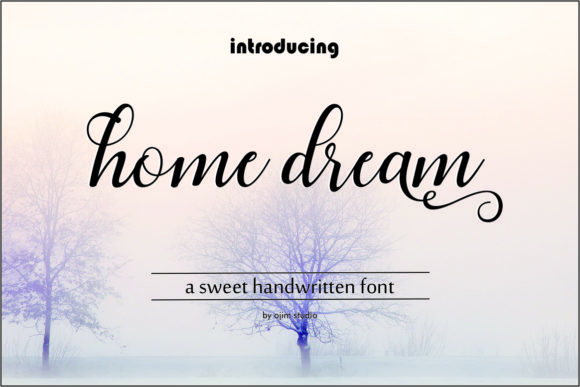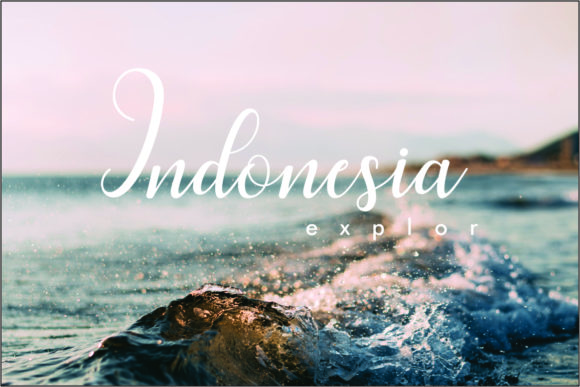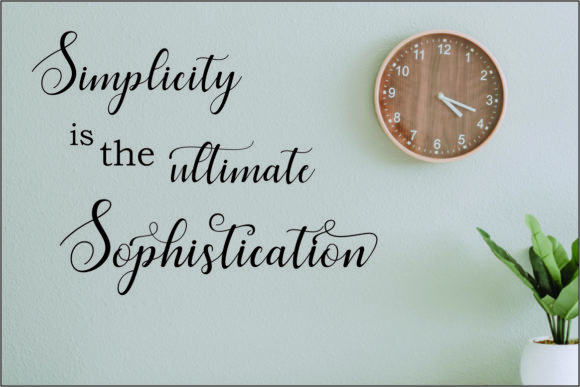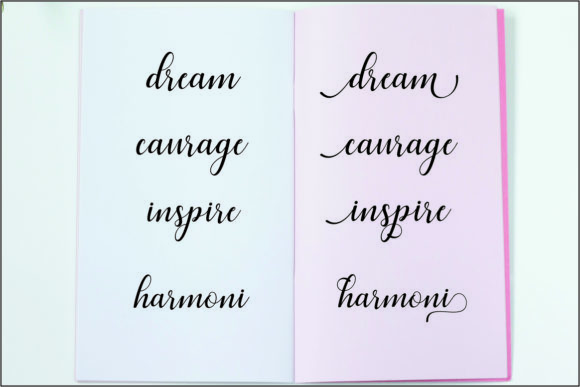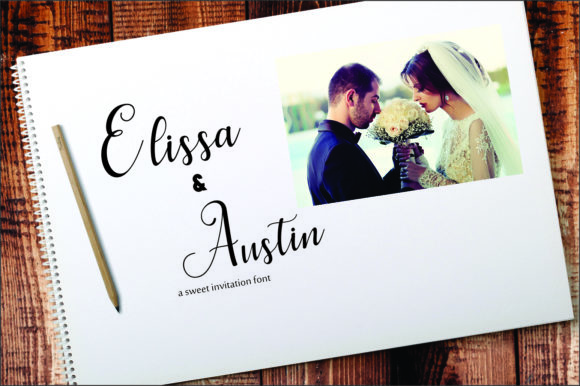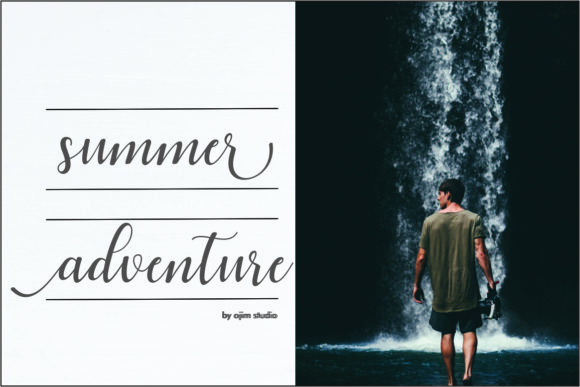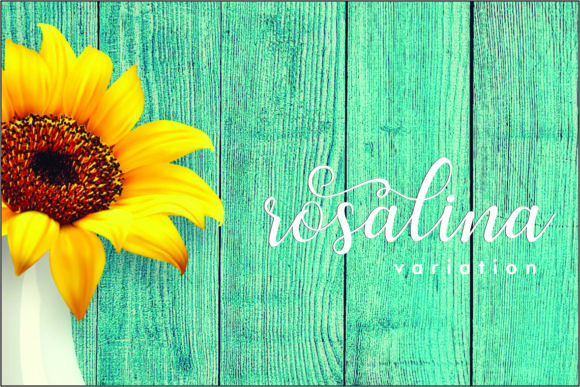
Home Dream Script Font
About Home Dream Script Font
The Home Dream is a modern script font. It includes elegant swashes which will add a luxurious feel to your designs. Every letter has been carefully crafted to make your text look beautiful with an elongated connection model.
It’s perfect for weddings, invitations, greeting cards, posters, business cards, quotes, and every other design which needs to look upscale and chic.